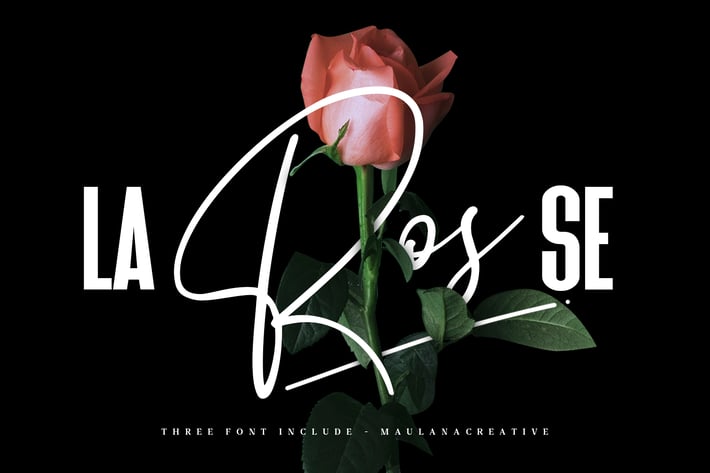
La Rosse Three Font Include
La Rosse Font include three font in one file, you can collaboration this three font for you're creativity.
La Rosse Serif is a handmade Victorian handlettering, which is combining modern and classic typography with some awesome alternates. Yes we back to early 1800s, bring classic touch on this decade.
La Rosse Sans-Serif is a bold sans serif. La Rosse Sans-Serif is the improved of the previously Serrona Typeface. La Rosse Sans-Serif is perfectly suited to branding, logos, magazines, films, website, headlines, titles, captions, games, apps, posters, t-shirts and more.
La Rosse Script is perfectly suited to signature, stationery, logo, typography quotes, magazine or book cover, website header, clothing, branding, packaging design and more.